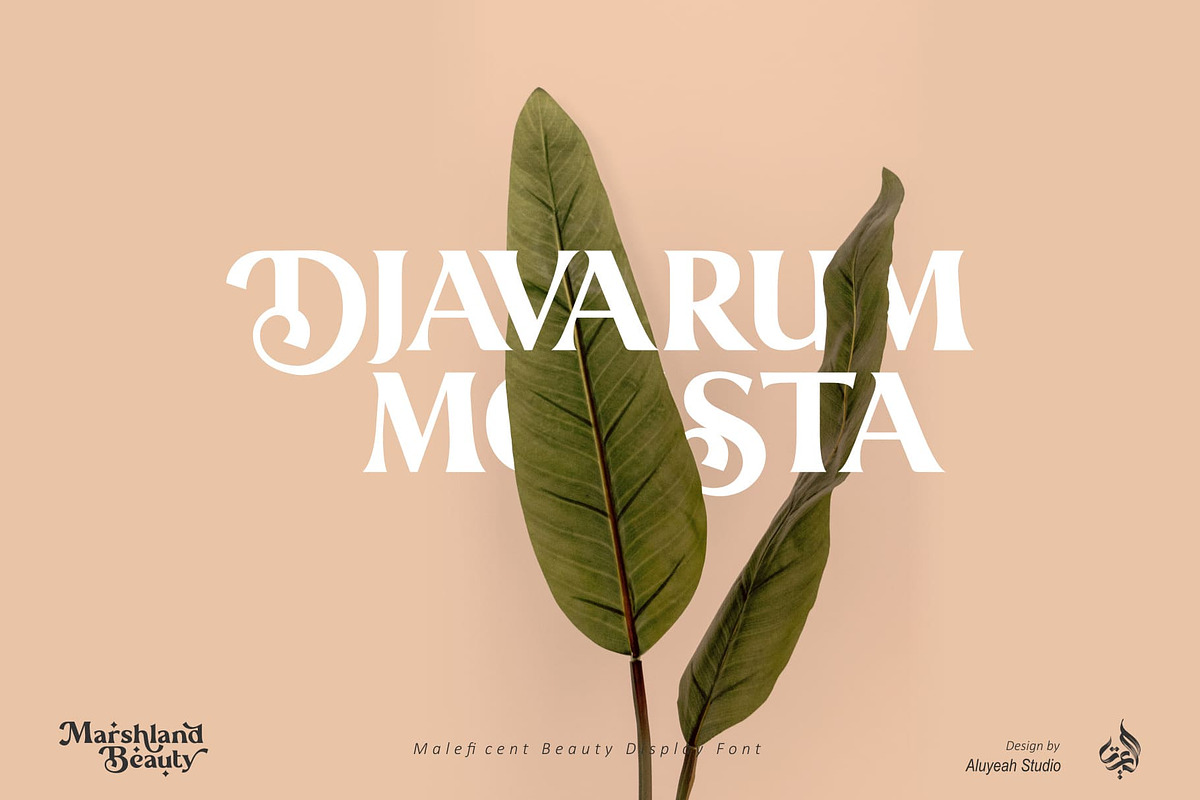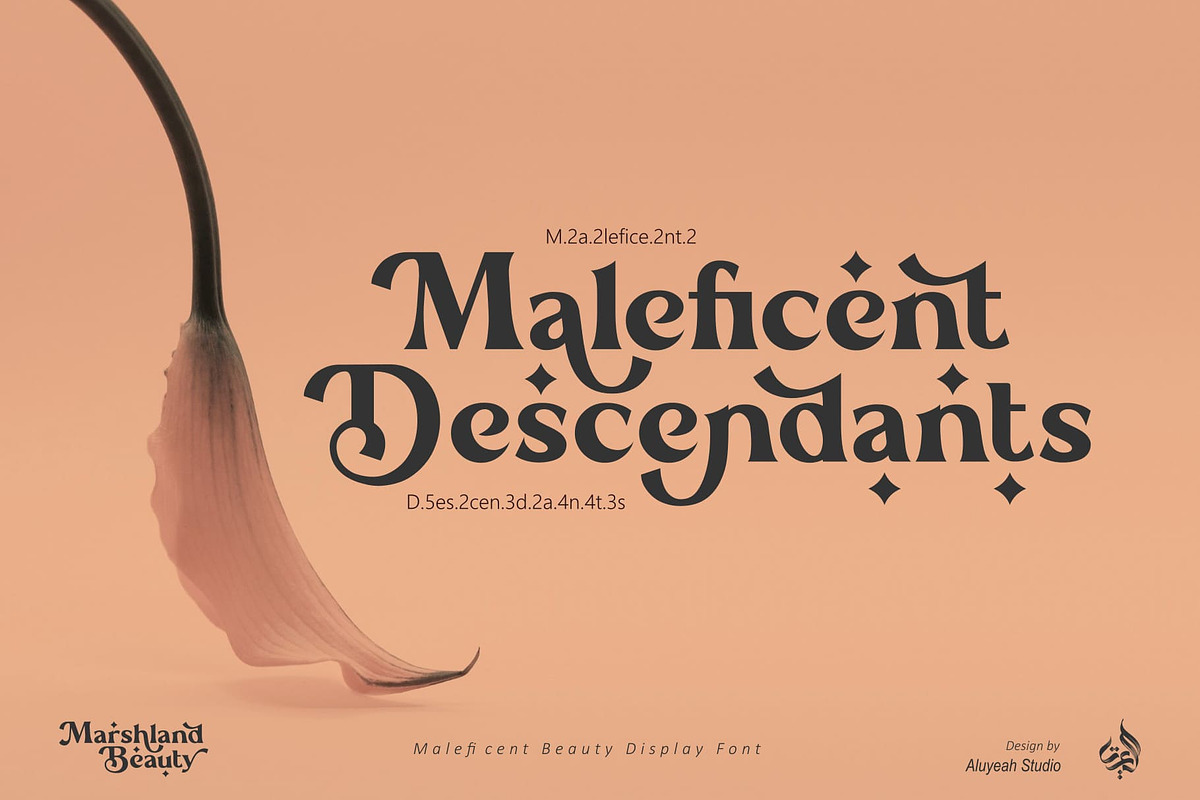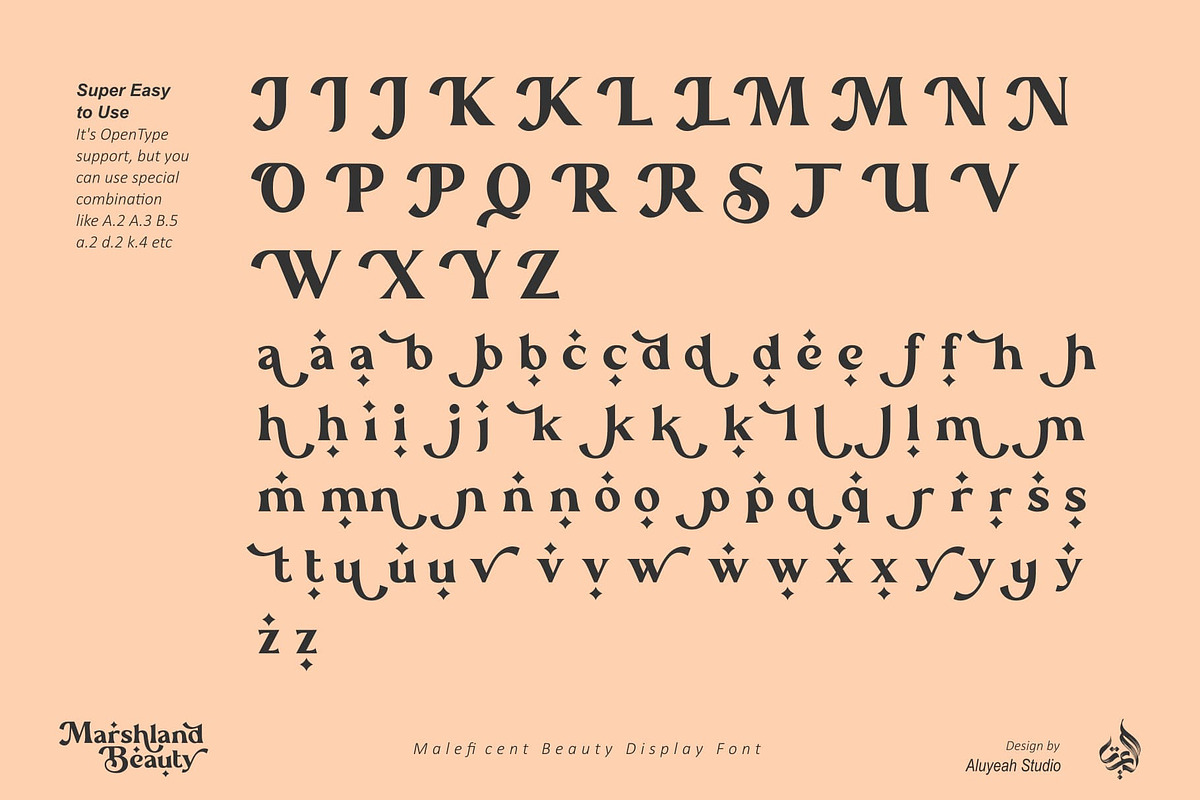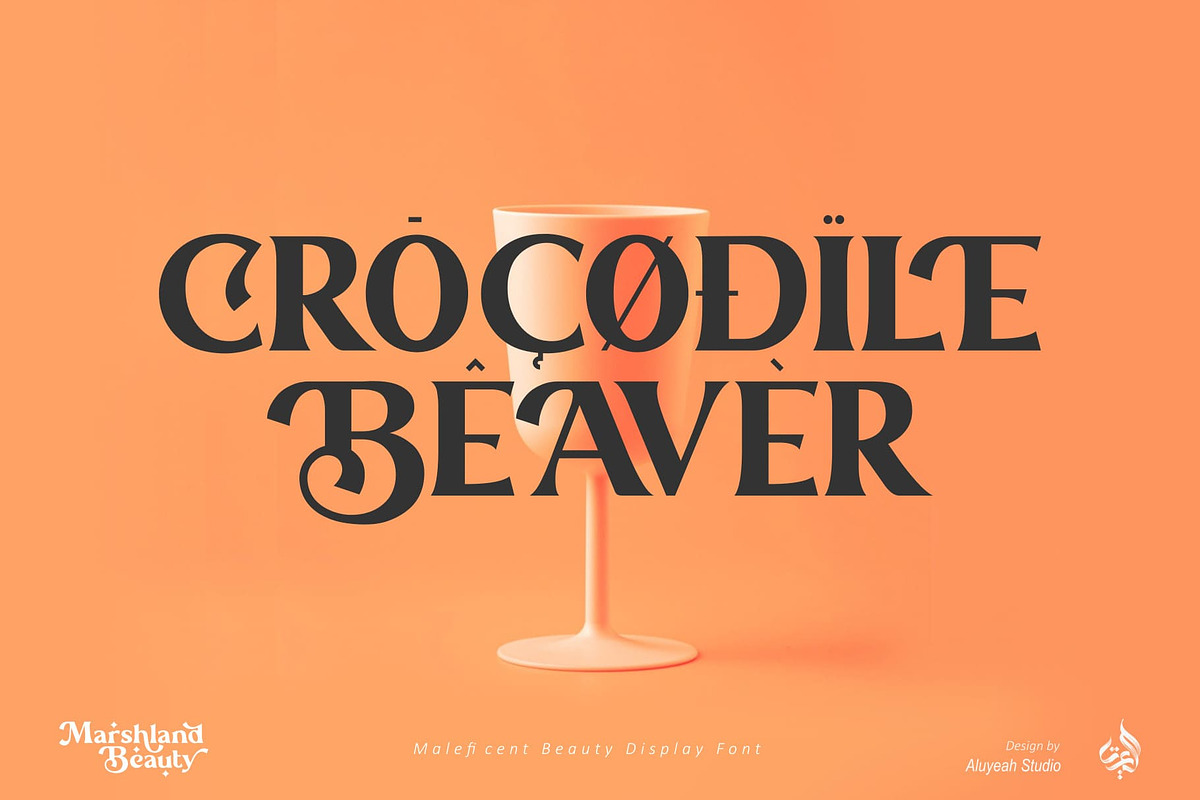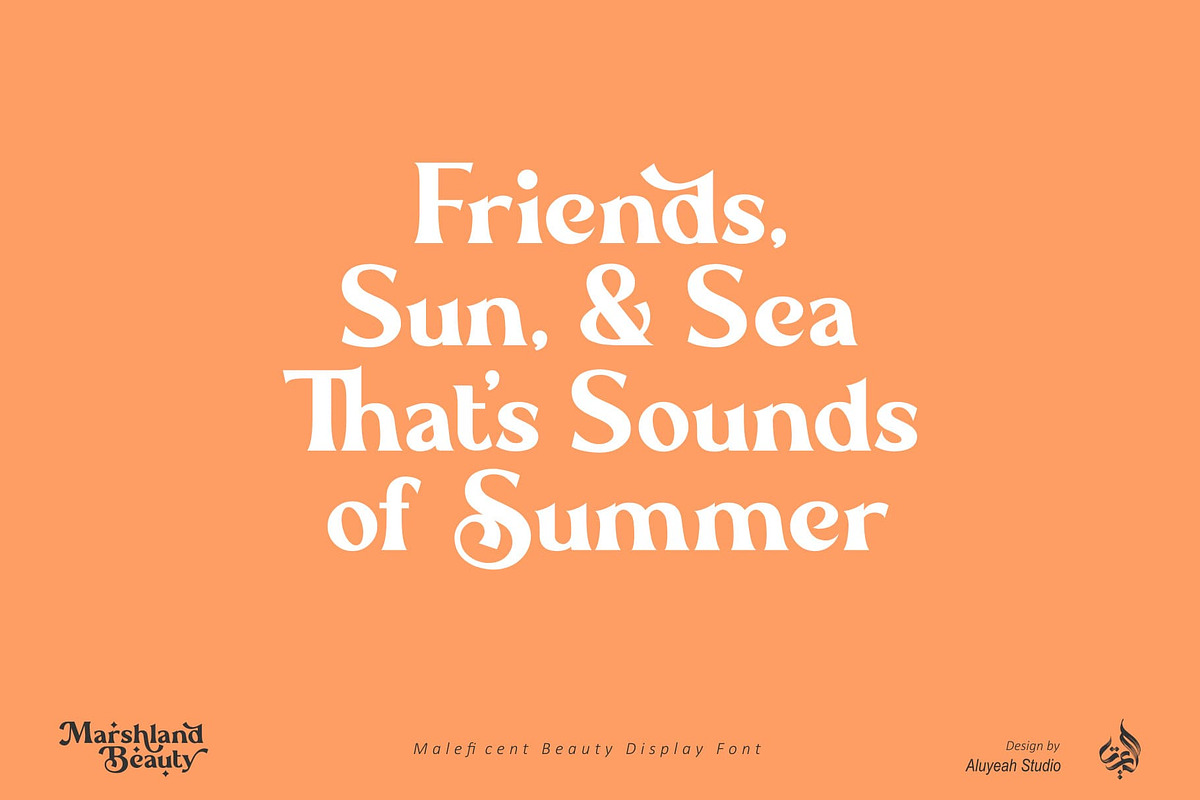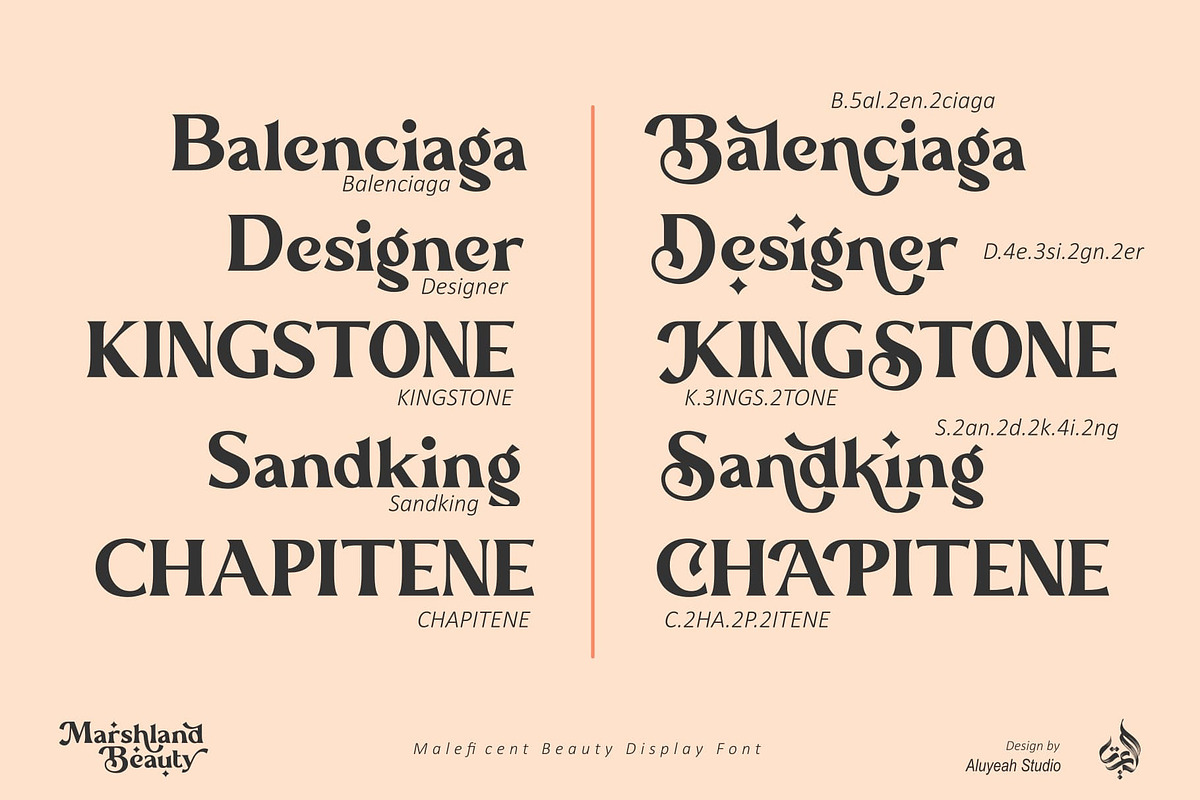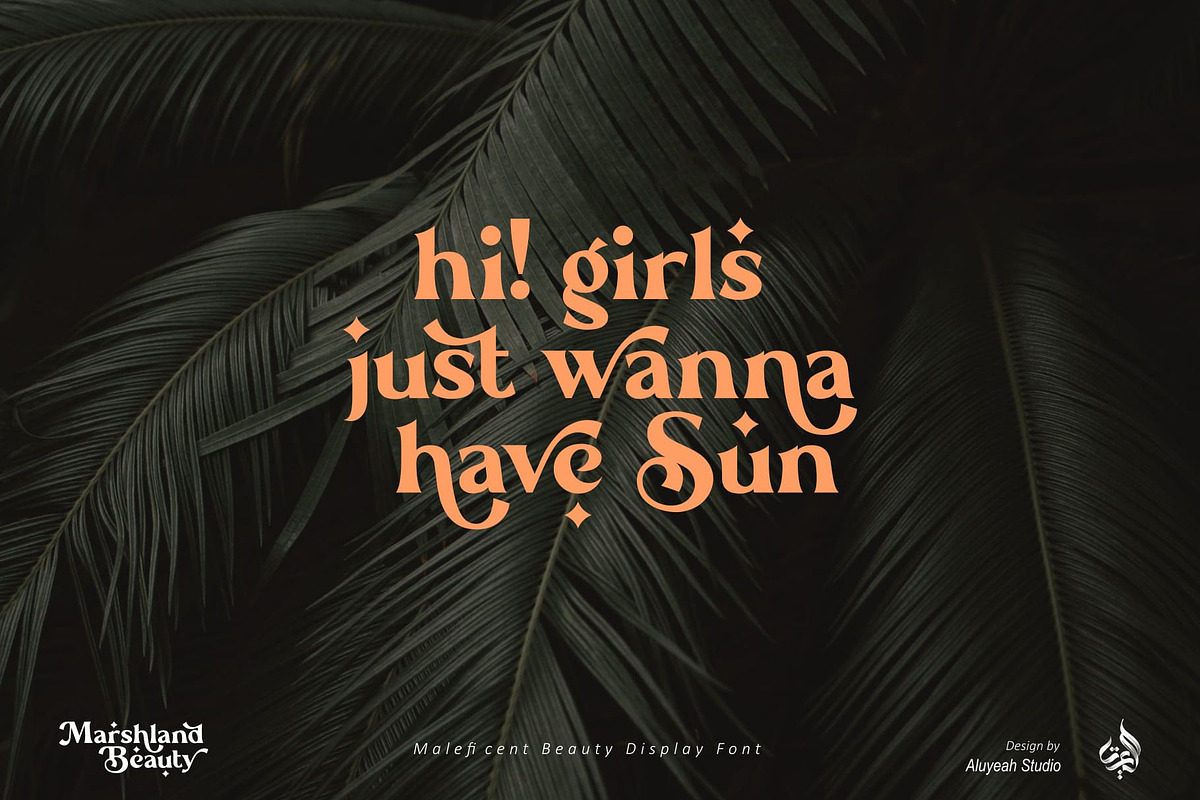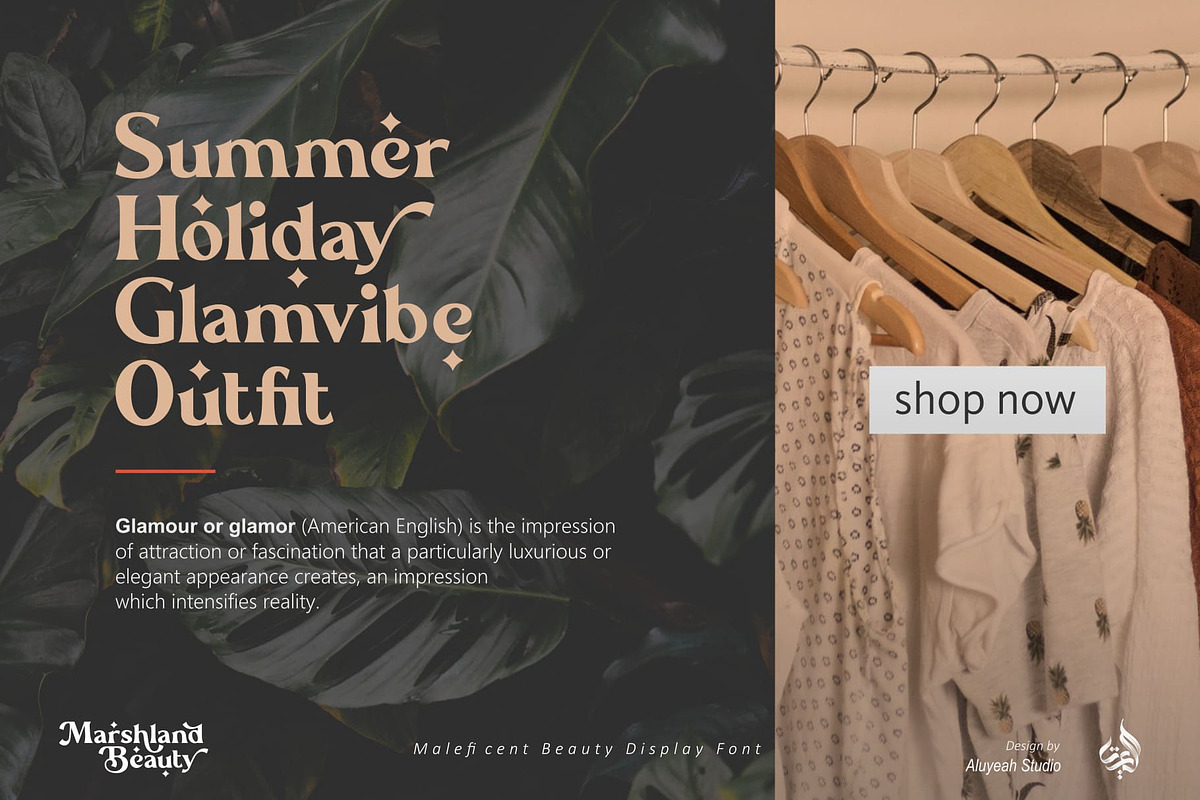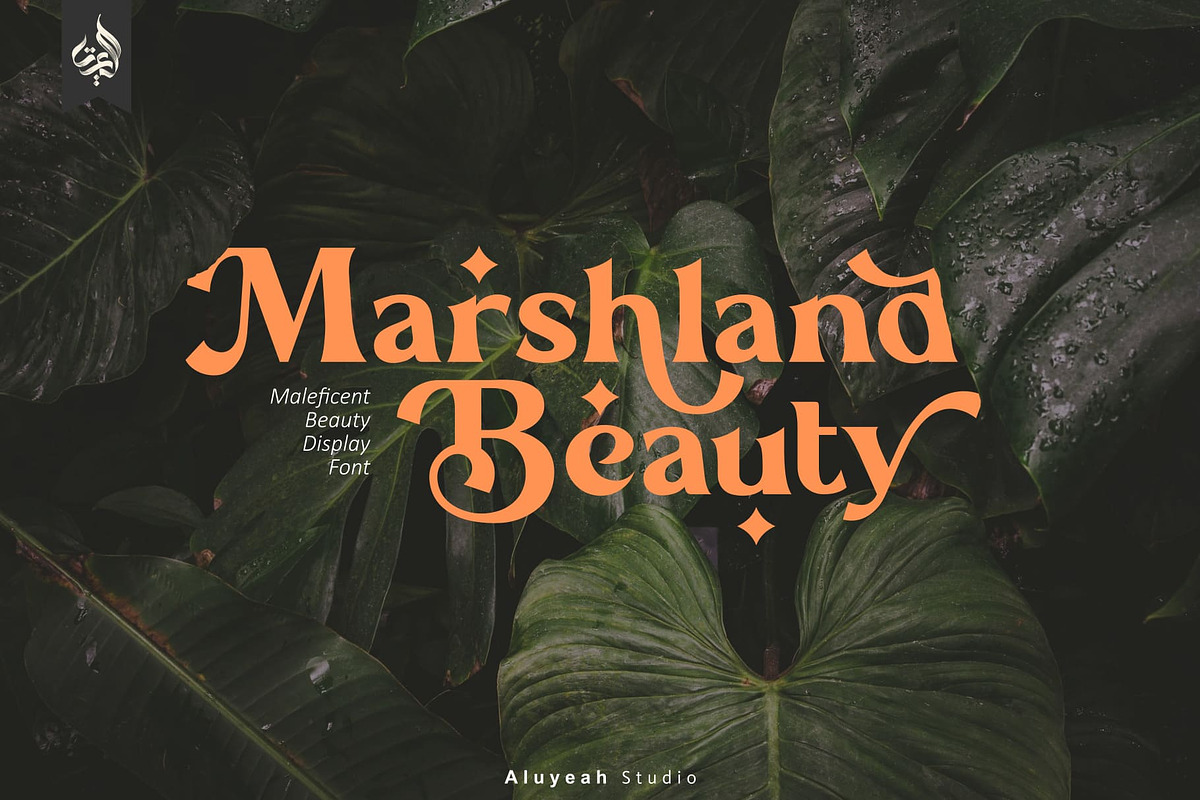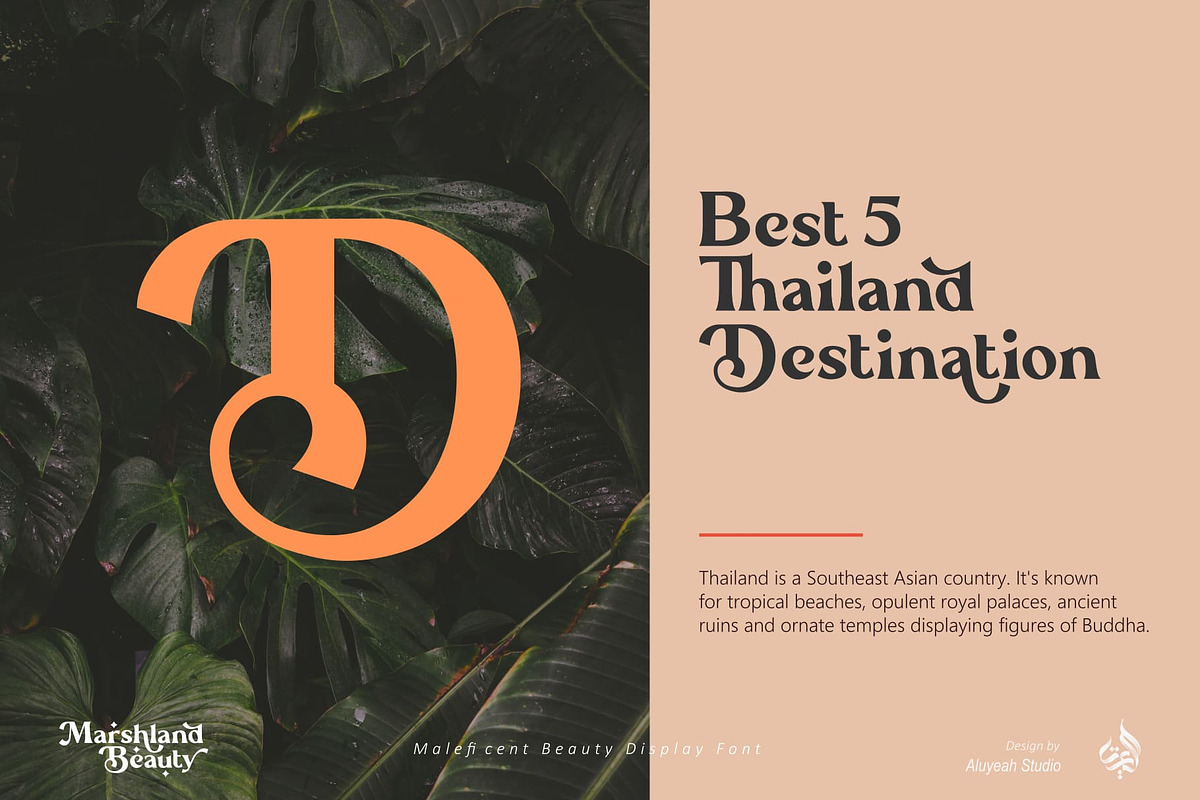
Marshland Beauty
Marshland Beauty, a Maleficent Beauty Display Font with 110+ Stunning Summer Vibe Alternates.
Very suitable for magazine, headline, website, ads, product package and all type of design project you have.
- OpenType support
- Multilingual support (15 languages)
- Super Easy to Use alternates – It’s OpenType support but you can easily call alternates character using special combination like A.2 B.4 h.3 etc. so you don’t need special software. To get results like the preview just type M.3ar.3sh.4land.2 B.5e.2au.4ty.2